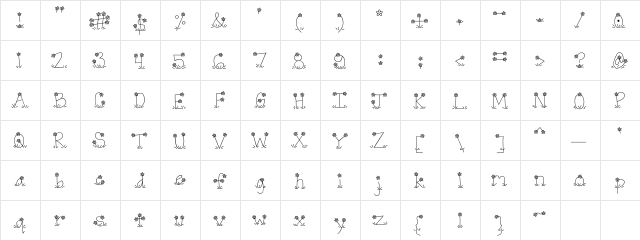
Scrap Flower Regular
Design Context for Scrap Flower Typeface
Scrap Flower is a composed and adaptable typeface that performs quietly and consistently across a wide range of design contexts.